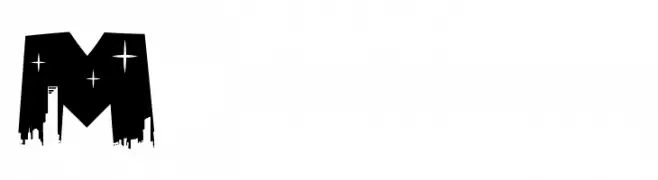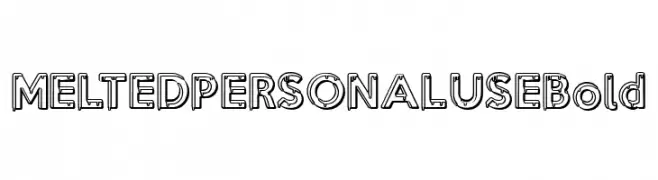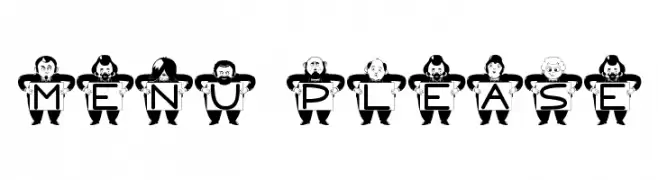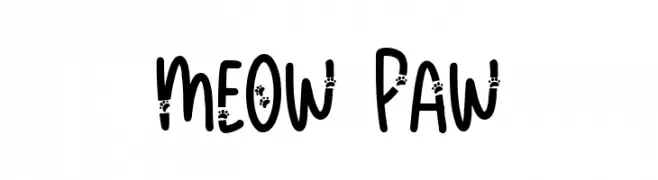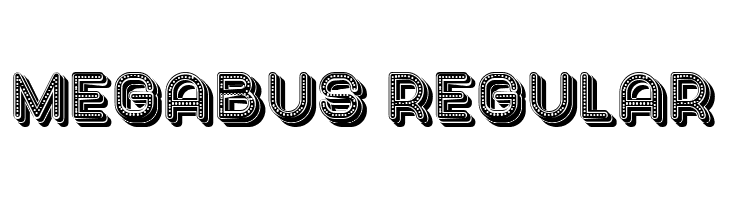
A bold, decorative font with a retro, three-dimensional style.
A bold, urban-style font with a dripping cityscape effect.
A bold, geometric font with playful dotted patterns and thick outlines.
A playful, melting-effect font with bold, rounded characters.
A bold, playful font with a melting outline style, perfect for decorative use.
A decorative font made from human figures forming each letter and character.
A whimsical, cartoon-like font with characters integrated into playful figures.
A playful font with cat ear designs on each character, offering a whimsical and modern aesthetic.
A playful, paw-print adorned font with a bold, rounded style.
A playful sans-serif font with paw print embellishments on each character.